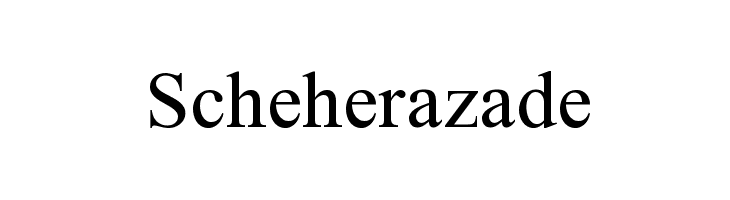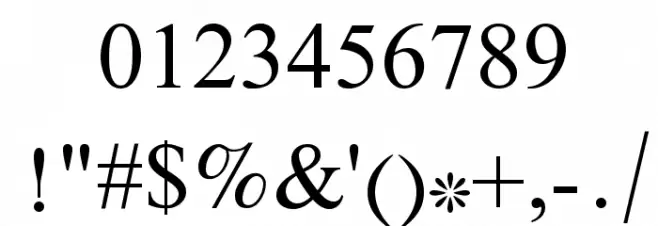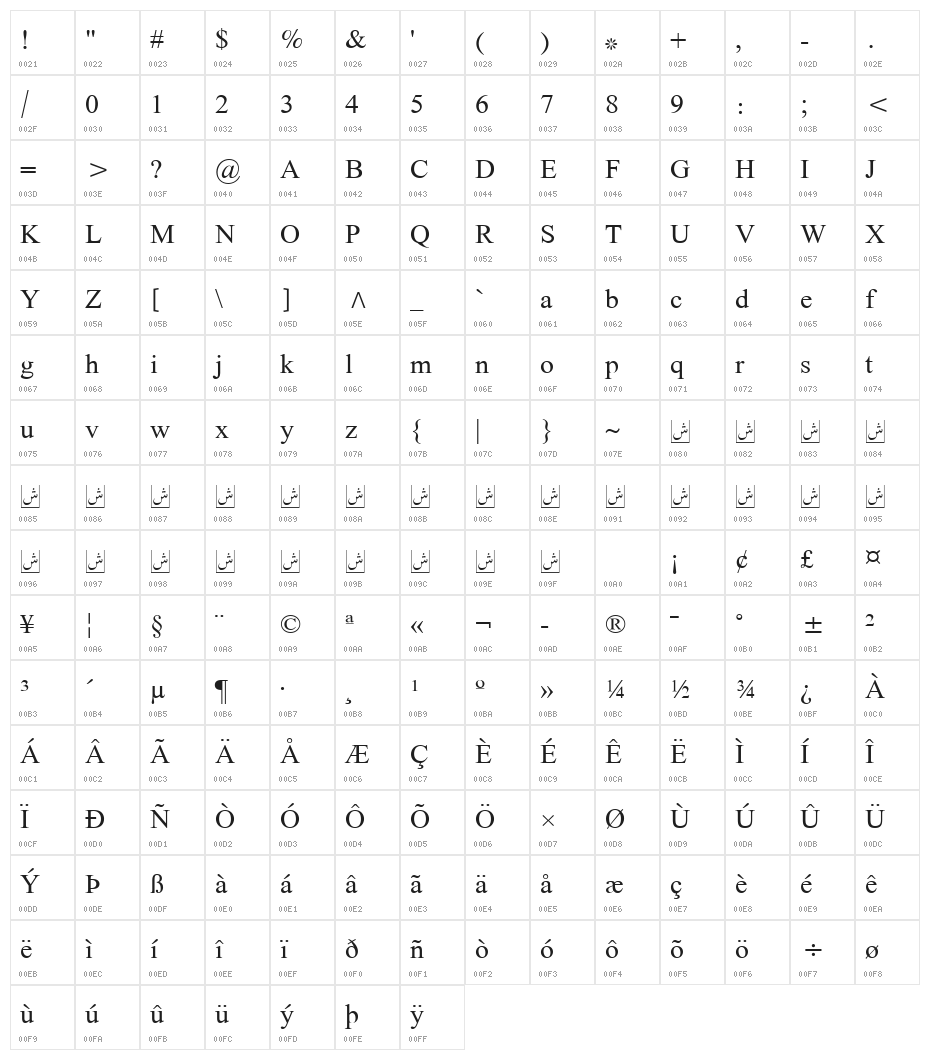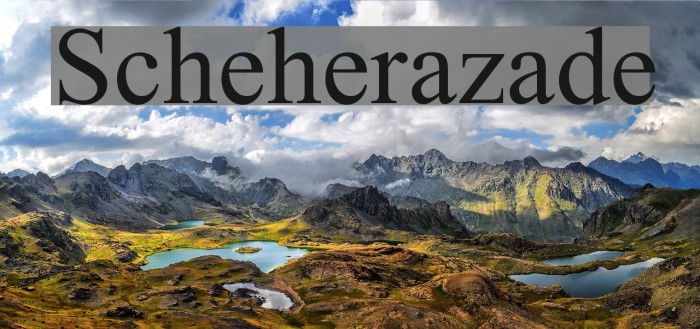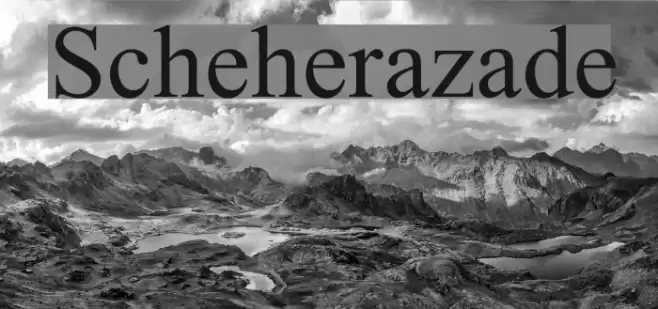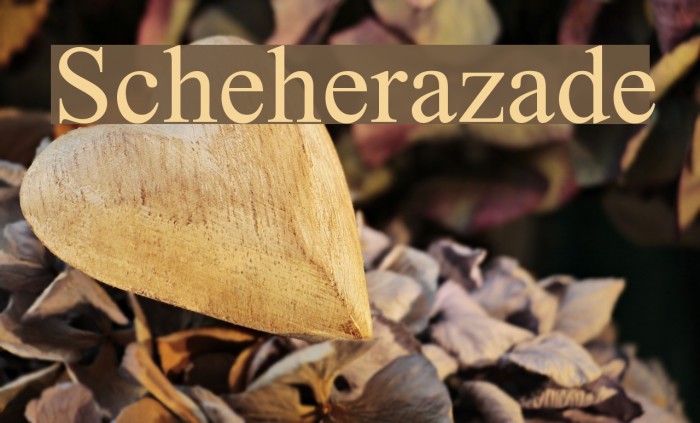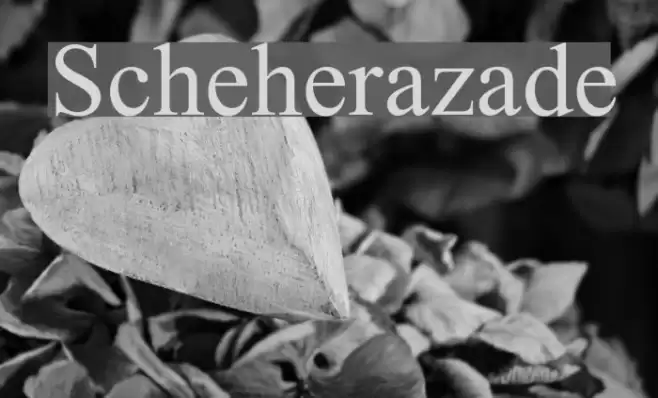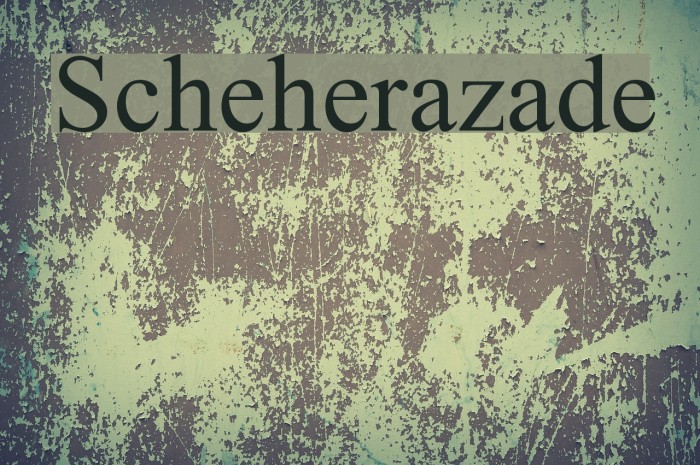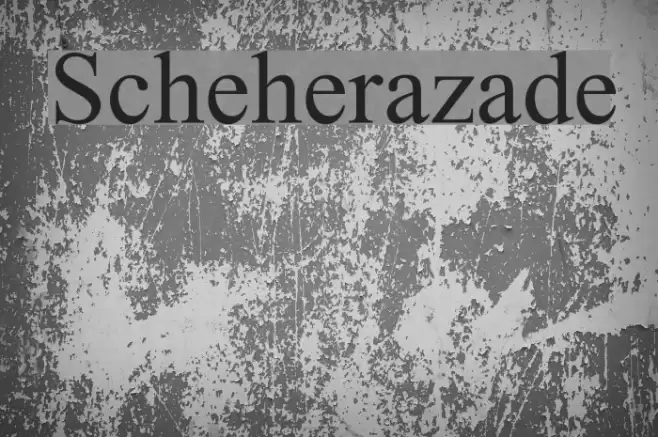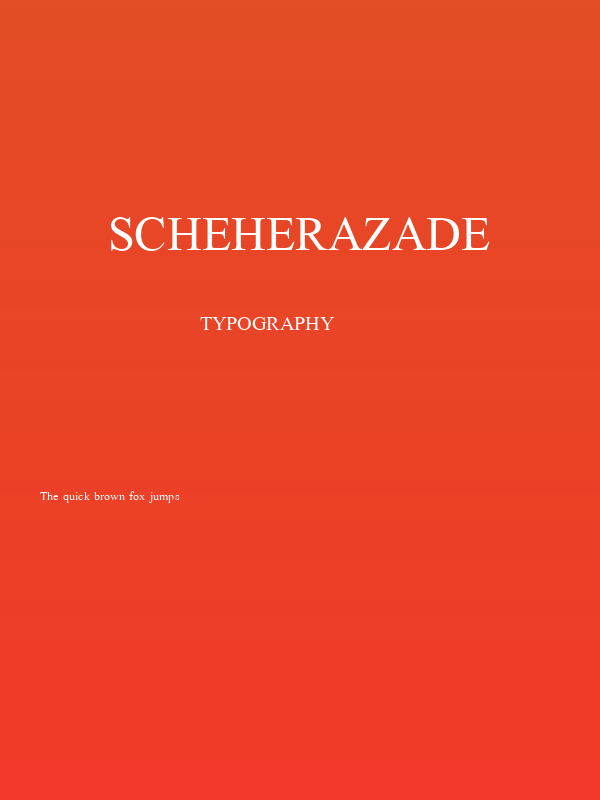
Scheherazade Font
Scheherazade Description
This font exhibits a classic serif style with elegant, traditional features. The serifs are pronounced, providing a sense of formality and sophistication. The uppercase letters are well-proportioned, with a slight contrast between thick and thin strokes, giving it a refined appearance. The lowercase letters maintain a consistent style, with smooth curves and a balanced structure. Numbers are clear and legible, making them suitable for various applications. The special characters are distinct and harmonize well with the overall design, ensuring versatility in usage.
Overall StyleClassic
Use CaseBody text, Headlines, Formal documents
Proposed ProjectsIdeal for formal documents, book typesetting, academic papers, and high-end branding.